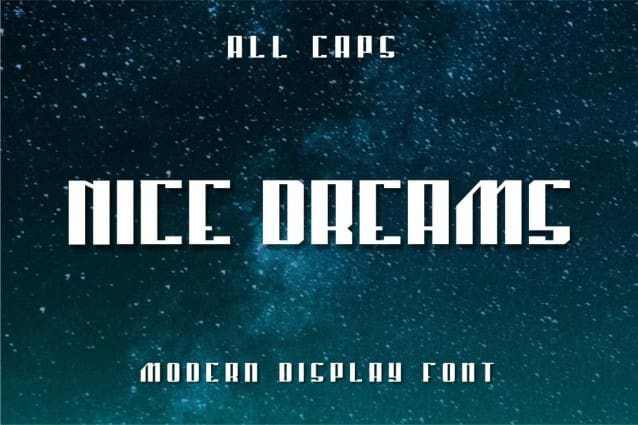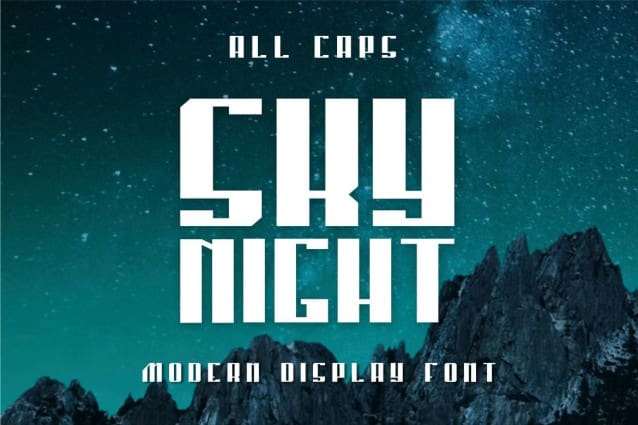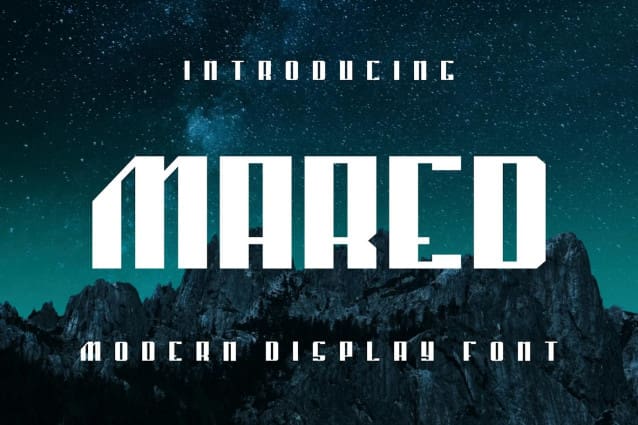
Mared Display Font
Mared Display Font, is a modern, bold display font with a playful style, ideal for attention-grabbing headlines, Logos and various design projects. Versatile and readable both digitally and in print, Mared adds a dynamic touch to your message